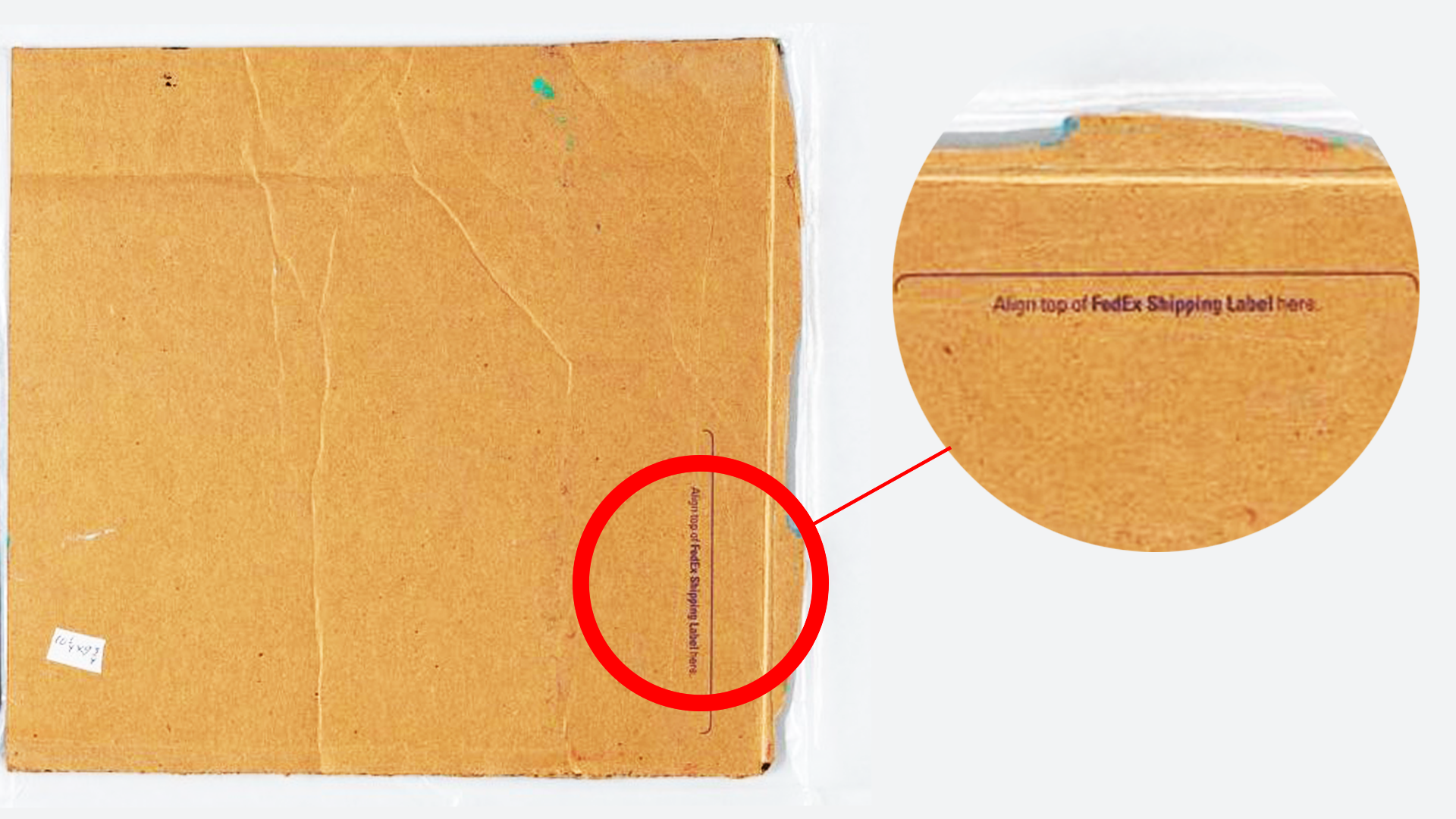
The FBI seizes entire Basquiat exhibition because of a font
The power of typography.
With his wily paintings and social commentary, Jean-Michel Basquiat has become one of the most famous neo-expressionist artists. The late artist's work now sells for hundreds of millions and a small selection of pieces were supposed to be touring the world over the next few years.
But... the FBI's art crime team seized 25 paintings, painted on cardboard and ranging from 10 inches to 5ft from a recent Basquiat exhibition in the Orlando Museum of Art. And the thing that gave it away, you ask? The FedEx typeface on the cardboard (if you want to have a go at painting your own pieces, then check out our roundup of the best art supplies).
According to The Art Newspaper, Aaron De Groft, the Director of the Orlando Museum, told the New York Times that the collection was from 1982 and was sold to screenwriter Thad Mumford. Mumford was apparently forced to auction the designs off in 2012 after being unable to pay for their storage.
However, the plot hole in De Groft's story stems from the typography used on the FedEx box that Basquiat so famously used as canvases. While the paintings were supposedly created in 1982, it has since been confirmed by Lindon Leader, the artist who redesigned the FedEx font, that the typeface matches the designs he created in 1994 – six years after Basquiat's death. De Groft has since been removed from his post.